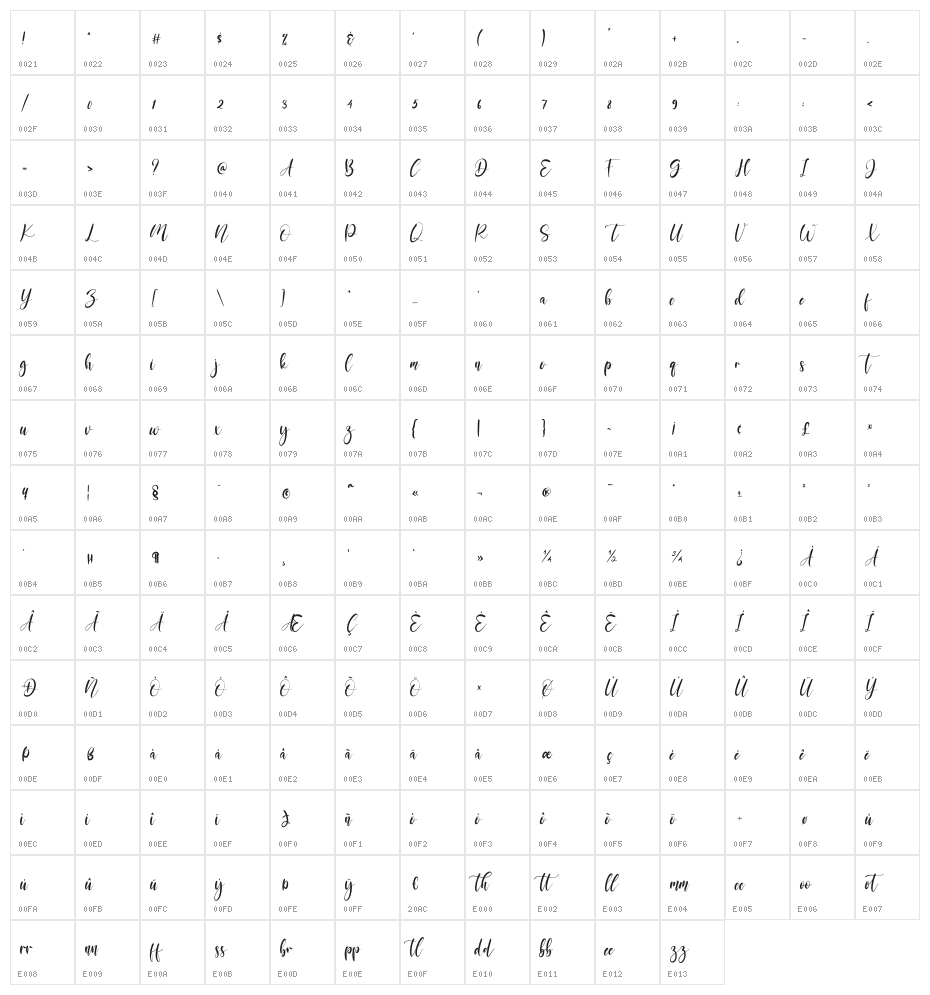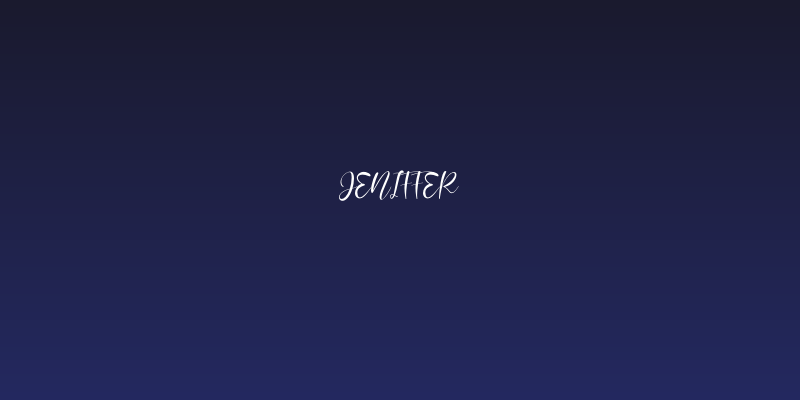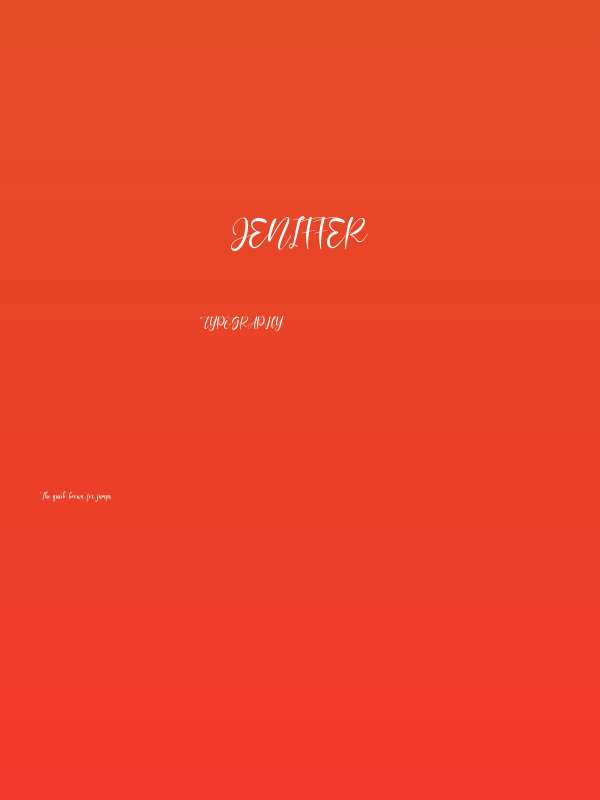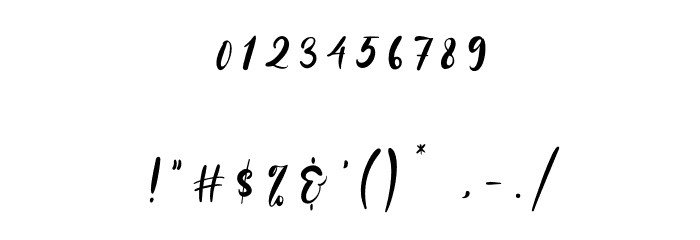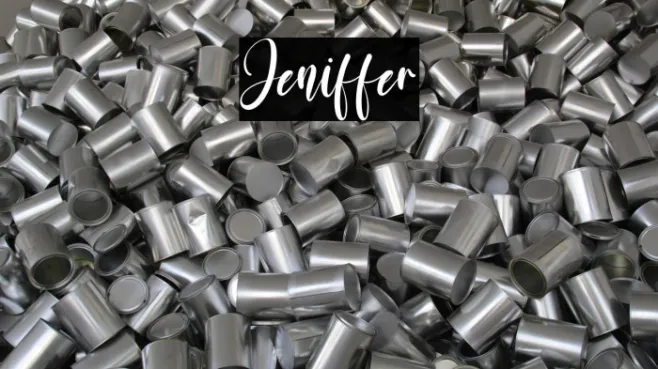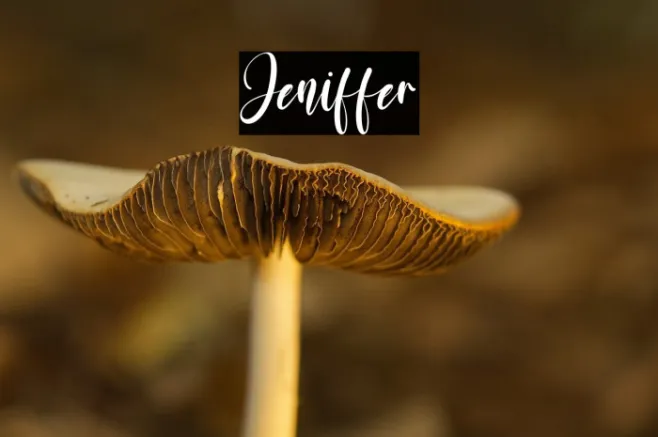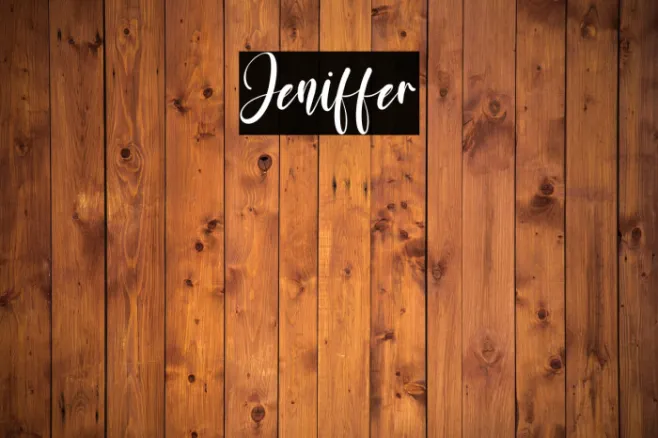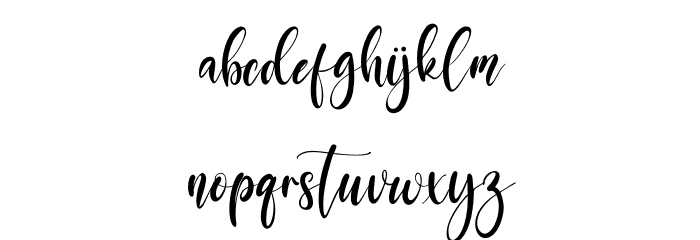
Jeniffer Font
Jeniffer Description
This font features an elegant and flowing script style, characterized by its smooth, cursive letterforms that mimic the fluidity of handwriting. The uppercase letters are particularly ornate, with sweeping ascenders and descenders that add a touch of sophistication and grace. The lowercase letters maintain a consistent style, offering a harmonious blend with the uppercase. The numerals and special characters are designed to complement the overall aesthetic, ensuring a cohesive look across all text. This font is perfect for projects that require a personal, artistic touch, such as invitations, greeting cards, and branding materials.
| Use Case | Headlines, Invitations, Artistic projects |
| Proposed Projects | Ideal for wedding invitations, greeting cards, personal branding, and artistic projects. |